Typewriter Font Generator
Real typewriters produce evenly-spaced letters because every character takes up the same width. Unicode's monospace block reproduces exactly that rhythm in plain text.
Pair Monospace with Dotted or Spaced Out for an even more mechanical, typebar look, or use it plain for a clean code-like aesthetic.
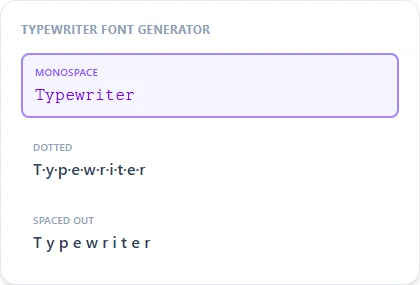
Fixed-width letters, the same trick real typewriters use
A typewriter's mechanical arms only work because every letter, from a narrow 'i' to a wide 'm', takes up identical horizontal space. Unicode's monospace block copies that same fixed-width rule digitally, which is why the result reads as typewritten even though it's rendered by whatever font your screen normally uses.
Where a typewriter look fits
Monospace text suits a retro-journal aesthetic, a mock 'typed note' caption, or simply a clean, code-adjacent look for a tech-focused bio. It's not a genuine programming font, so treat it as decorative rather than a substitute for an actual code block.
Does this look like a specific typewriter font?
It uses Unicode's monospace block, which is a generic fixed-width look rather than a scan of any specific typewriter model. It reads as "typewriter-ish" without claiming to be one exact machine's typeface.
Can I use this for code snippets?
It's visually monospace but isn't a real programming font — fine for a caption or bio, not a substitute for an actual code block.
Does the spacing stay even with numbers and punctuation too?
Yes, the monospace block includes fixed-width digits and most common punctuation, so mixed text keeps the same even rhythm.
Is monospace text good for a Discord or Instagram username?
Yes, its clean, even spacing reads well at small sizes, making it a common pick for usernames that want a technical or minimalist feel.